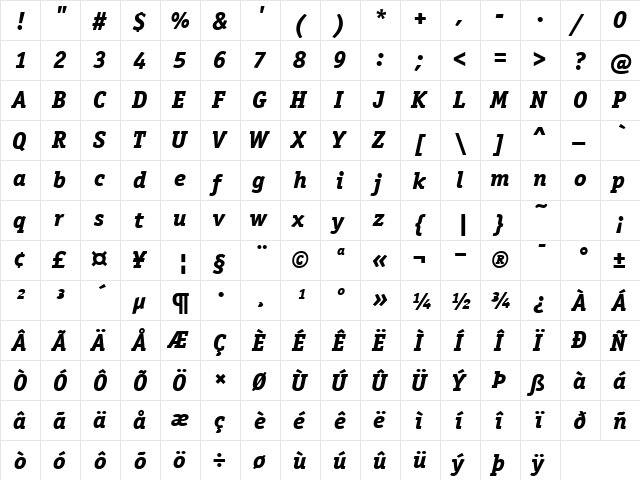
OfficinaSerITCTT ExtraBoldIta
| Foundry | International Typeface Corporation |
| Designer | Erik Spiekermann/Ole Schaefer |
Design Context for OfficinaSerITCTT Typeface
OfficinaSerITCTT offers clean, dependable letterforms without strong stylistic allegiance, making it a practical choice for designers who need flexibility. The heavy weight commands attention and anchors typographic hierarchies.